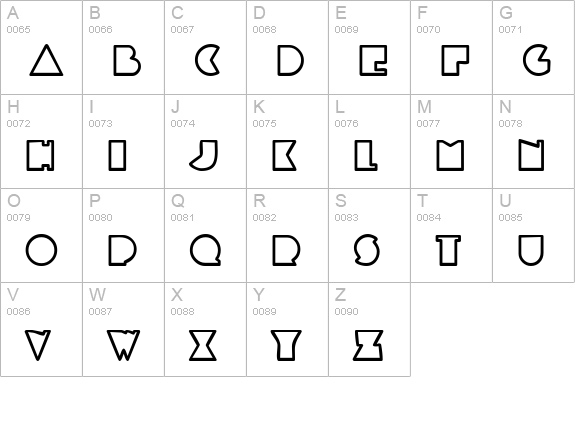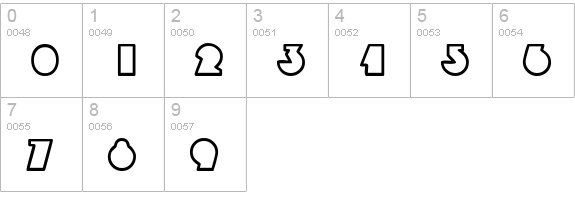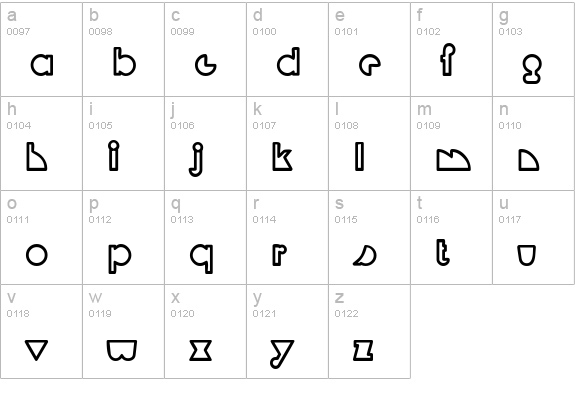
MandrelOutline Bold Font Details
MandrelOutline Bold is a strong, high-contrast variant in the MandrelOutline typeface family \xE2\x80\x94 well suited to headlines, attention-grabbing titles, and strong calls-to-action.
MandrelOutline Bold font is a stunning and eye-catching typeface that is sure to make a bold statement in any design project. With its strong and defined outline, this font exudes confidence and power. It is perfect for headlines, titles, logos, and any other creative project that requires a touch of flair. What sets MandrelOutline Bold font apart is not only its striking appearance but also its versatility. It can be used for both formal and informal designs, adding a touch of sophistication or a hint of playfulness, depending on the context. One of the best aspects of MandrelOutline Bold font is that it is freely available to download at FontsMarket.com. This means that designers and enthusiasts alike can easily access this font without any cost. Whether you are a professional designer or a hobbyist, this font allows you to add a touch of elegance and professionalism to your work without breaking the bank. With its clean lines and sharp edges, MandrelOutline Bold font is a true standout in the typography world. Its bold and modern aesthetic is sure to capture attention and leave a lasting impression. Download it for free at FontsMarket.com and elevate your designs to new heights.